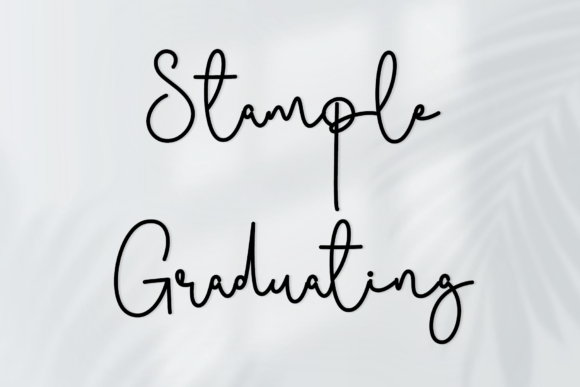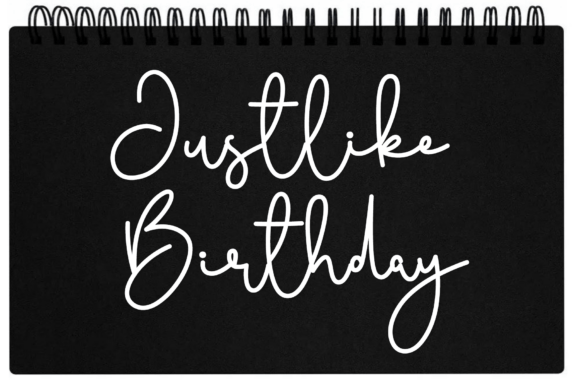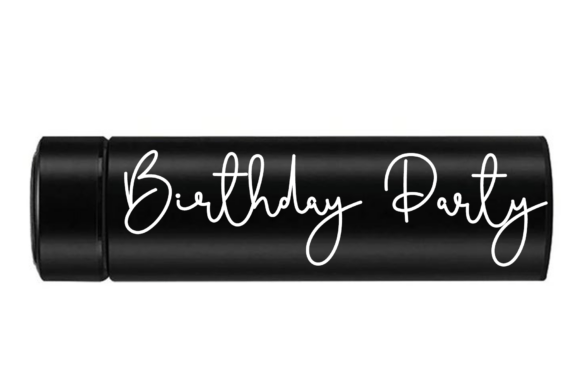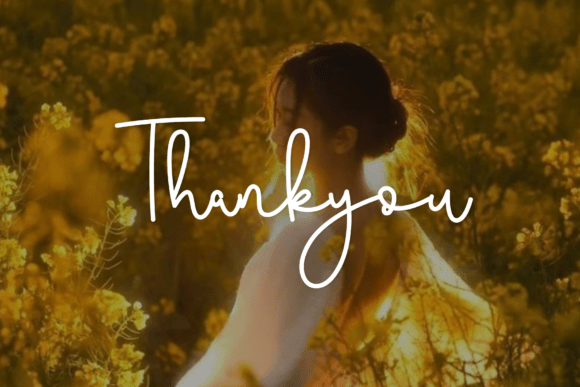
Catalina Spiritual Font: Elevate Your Brand with Elegance and Sophistication
In the world of typography, few fonts manage to strike a balance between elegance and warmth. Catalina Spiritual, a sophisticated and rhythmic script font, is one such exceptional find. Designed to marry the fluidity of calligraphic styles with the comforting feel of organic artistry, Catalina Spiritual is poised to become the go-to choice for brands and designers seeking a touch of refinement and personality.
The Distinctive Charm of Catalina Spiritual
At the heart of Catalina Spiritual’s allure is its distinctive use of sweeping, looping ascenders. These elegant flourishes not only add a dynamic rhythm to the text but also imbue it with a sense of customized, artisanal craftsmanship. It’s as if each letter has been carefully hand-written, bringing a personal touch that is hard to find in digital typography.
This unique characteristic makes Catalina Spiritual a premier choice for various applications, including artisanal food branding, boutique product packaging, upscale lifestyle marketing, and creative editorial titles. The font’s ability to convey a sense of luxury, while remaining approachable and warm, sets it apart from more generic typefaces.
Applications of Catalina Spiritual
Artisanal Food Branding
For artisanal food brands, the packaging and branding must reflect the quality and care that goes into the products. Catalina Spiritual, with its elegant and bespoke feel, can elevate labels, packaging, and marketing materials, suggesting a high level of craftsmanship and attention to detail.
Boutique Product Packaging
Boutique products require packaging that not only stands out but also communicates the brand’s story and values. This font, with its sophisticated and rhythmic flow, can add a layer of luxury and exclusivity to product packaging, making it more appealing to discerning consumers.
Upscale Lifestyle Marketing
In the realm of upscale lifestyle marketing, the choice of typography can significantly impact the brand’s perception. Catalina Spiritual, with its refined and elegant aesthetic, is perfectly suited for marketing materials aimed at a high-end audience, conveying a sense of sophistication and prestige.
Creative Editorial Titles
For editorial projects, such as magazines, blogs, and books, Catalina Spiritual can add a touch of elegance to titles and headings. Its unique character ensures that the publication stands out, offering readers a visually engaging experience that complements the content.
Why Choose Catalina Spiritual?
Catalina Spiritual is more than just a font; it’s a statement of elegance, sophistication, and craftsmanship. Here are a few reasons why designers and crafters should consider it for their projects:
- Unique Aesthetic: The looping ascenders and fluidity of the font create a distinctive look that sets it apart from more conventional typefaces.
- Versatility: Suitable for a wide range of applications, from branding and packaging to editorial and marketing materials.
- Emotional Connection: The warm, organic feel of the font helps create an emotional connection with the audience, suggesting care, quality, and attention to detail.
Catalina Spiritual is a sophisticated and rhythmic script font that brings a unique blend of elegance, warmth, and craftsmanship to any project. Its distinctive looping ascenders and organic aesthetic make it an ideal choice for artisanal food branding, boutique product packaging, upscale lifestyle marketing, and creative editorial titles. By choosing Catalina Spiritual, designers and crafters can elevate their work, adding a touch of sophistication and personality that sets their projects apart.
Whether you’re looking to create a luxurious brand image, craft beautiful editorial content, or design packaging that tells a story, Catalina Spiritual is a versatile and powerful tool that can help you achieve your creative vision.